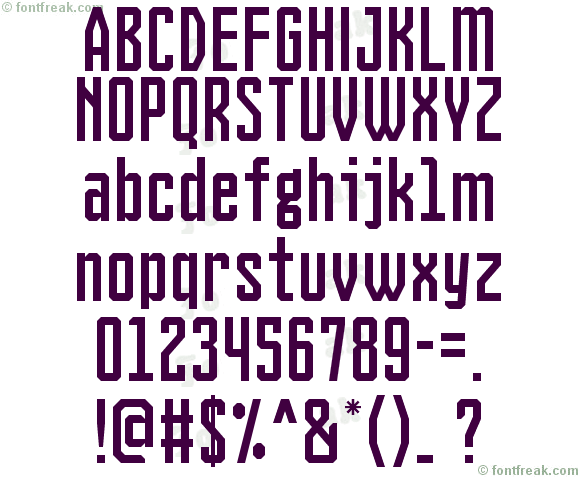
Sangyo
Sangyo Italic
Sangyo by GGBot is a striking display font that combines boldness with a contemporary flair, making it an excellent choice for a variety of design projects. As a freeware typeface, it offers designers the flexibility to use it without any licensing costs, encouraging creativity and innovation. The Sangyo font is characterized by its unique geometric shapes and a strong, recognizable presence. The stroke weight is consistent, providing a clean and solid appearance, while the moderate contrast in certain characters enhances readability. The letterforms exhibit a slightly condensed spacing, allowing for effective use in tight layouts without losing legibility.
This font is particularly well-suited for eye-catching applications such as movie posters, where its bold design can make a statement, or restaurant menus, giving a modern twist to the dining experience. Additionally, Sangyo is a great choice for branding projects, especially for small businesses looking to establish a memorable identity. It also works wonderfully in promotional materials, helping to grab attention and convey a sense of contemporary style.
Target audiences for this font include graphic designers, small business owners, and content creators who are seeking a modern typeface that offers versatility and impact. Its unique visual style allows for creative experimentation, appealing to those who want to stand out in a crowded marketplace.
What sets the Sangyo font apart is its balance of boldness and readability, making it a versatile choice for various applications. With its modern aesthetic and practical usability, it's an excellent addition to any designer's toolkit. Don’t miss out on this opportunity—enjoy the Sangyo font free download and elevate your design projects today.